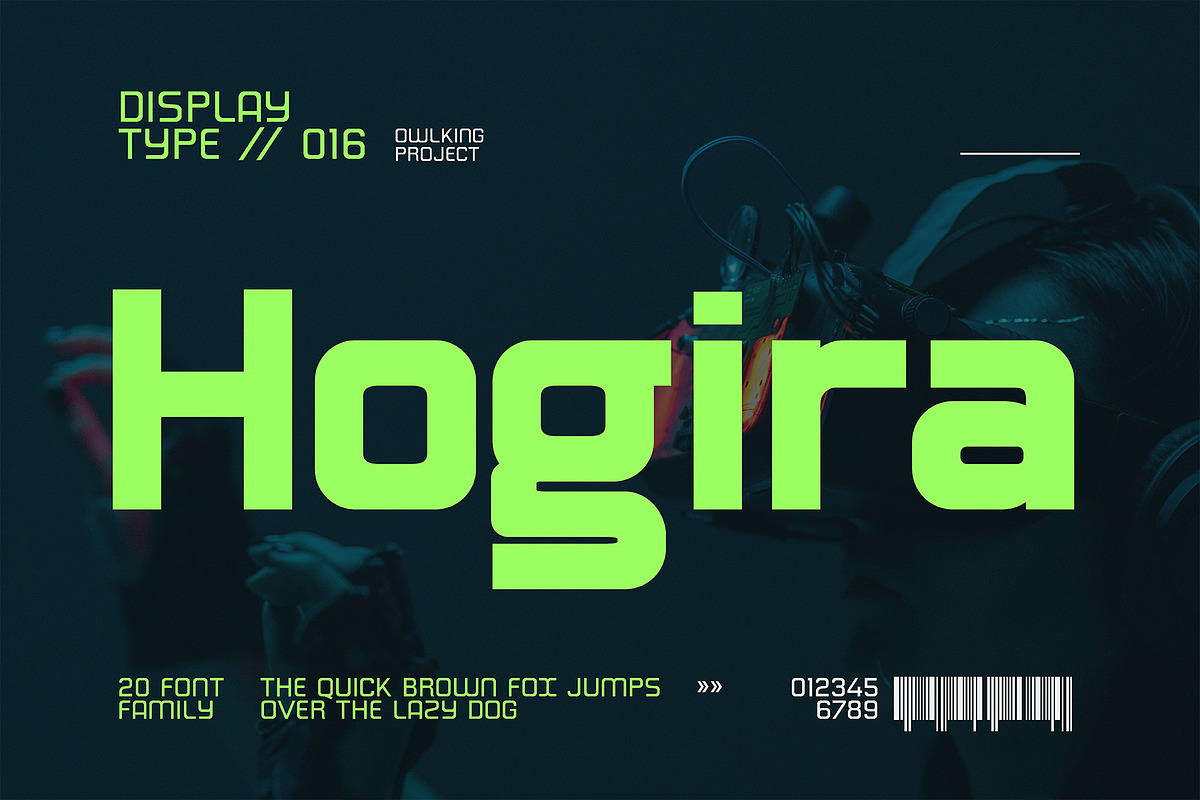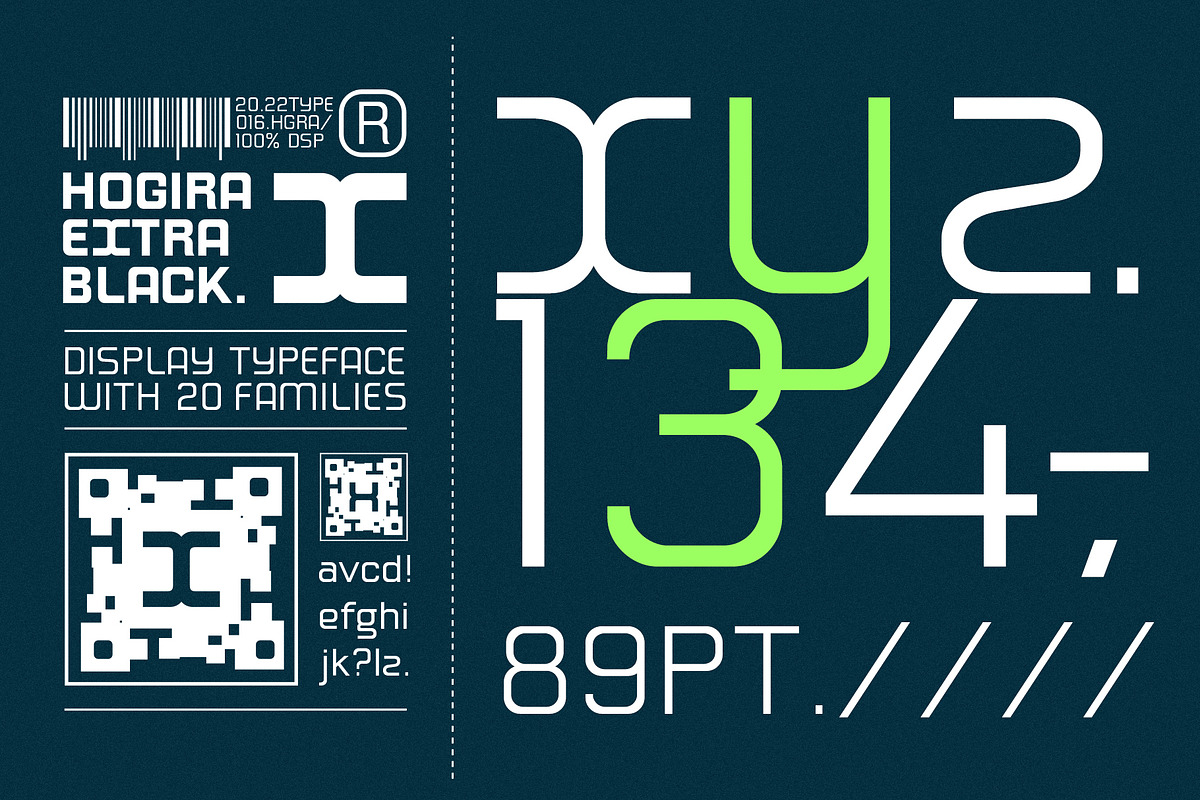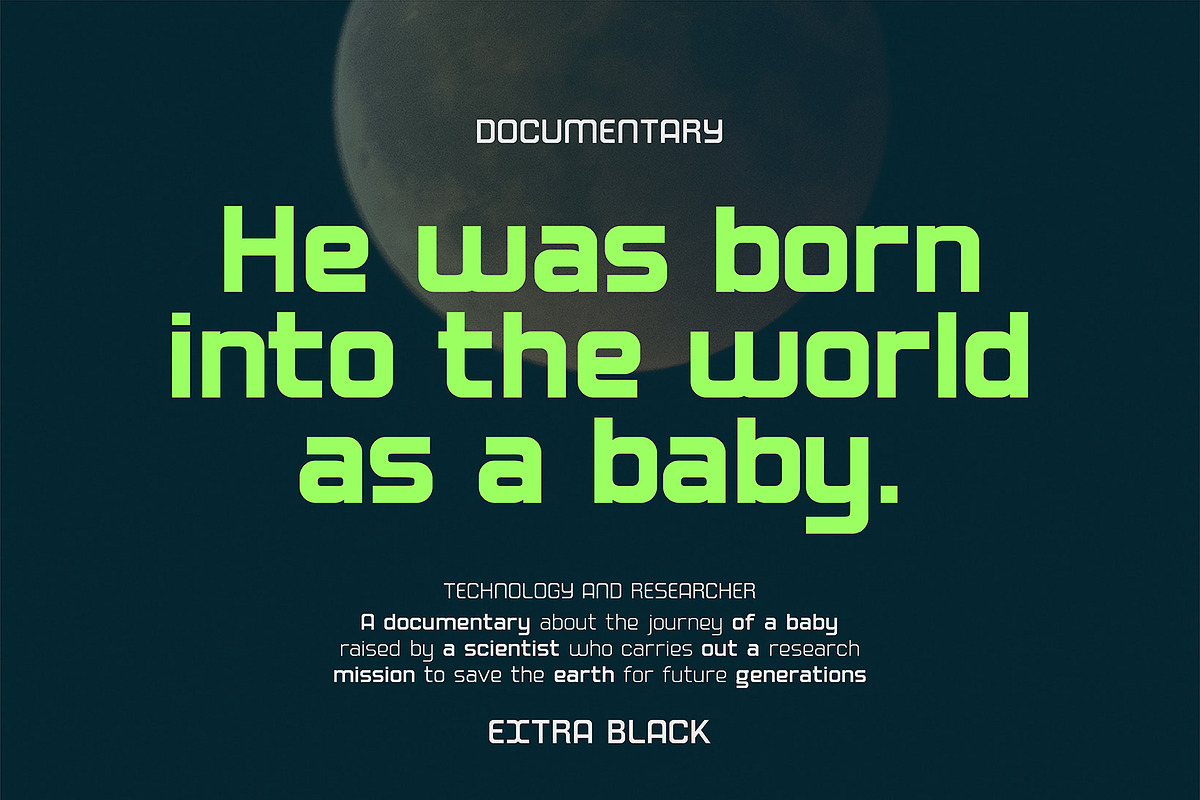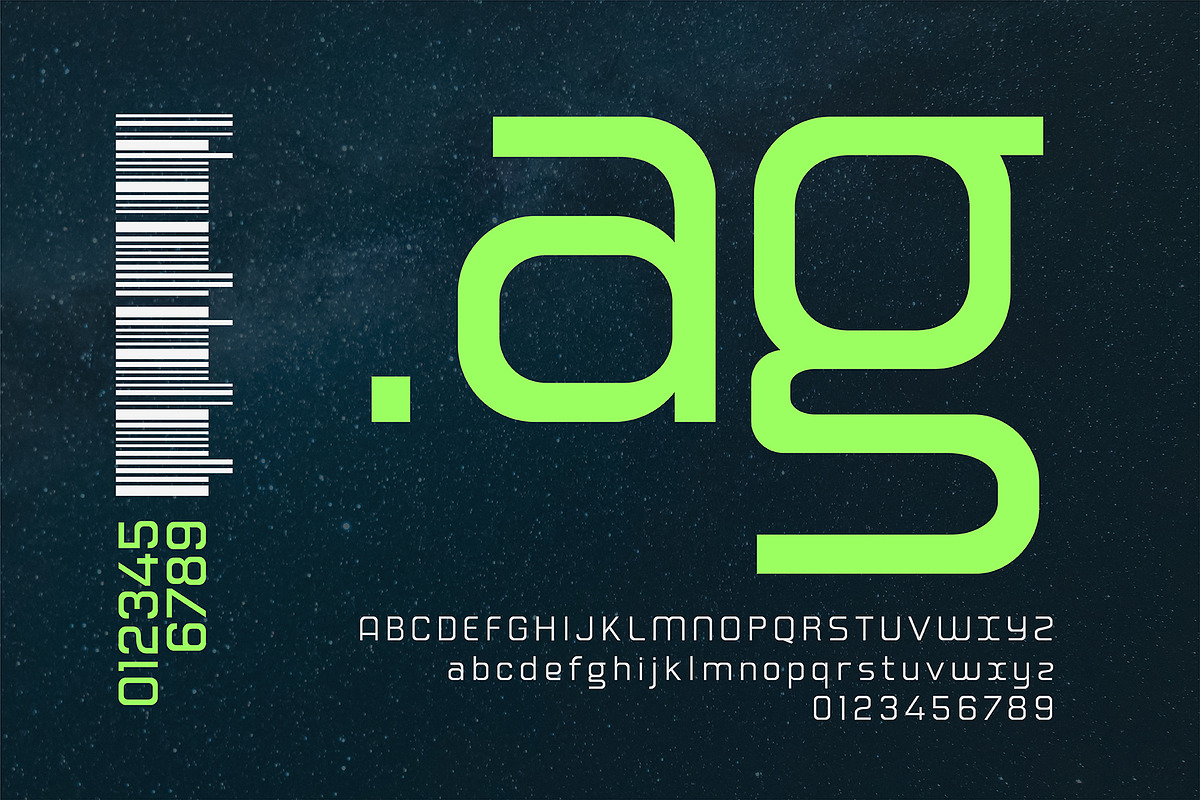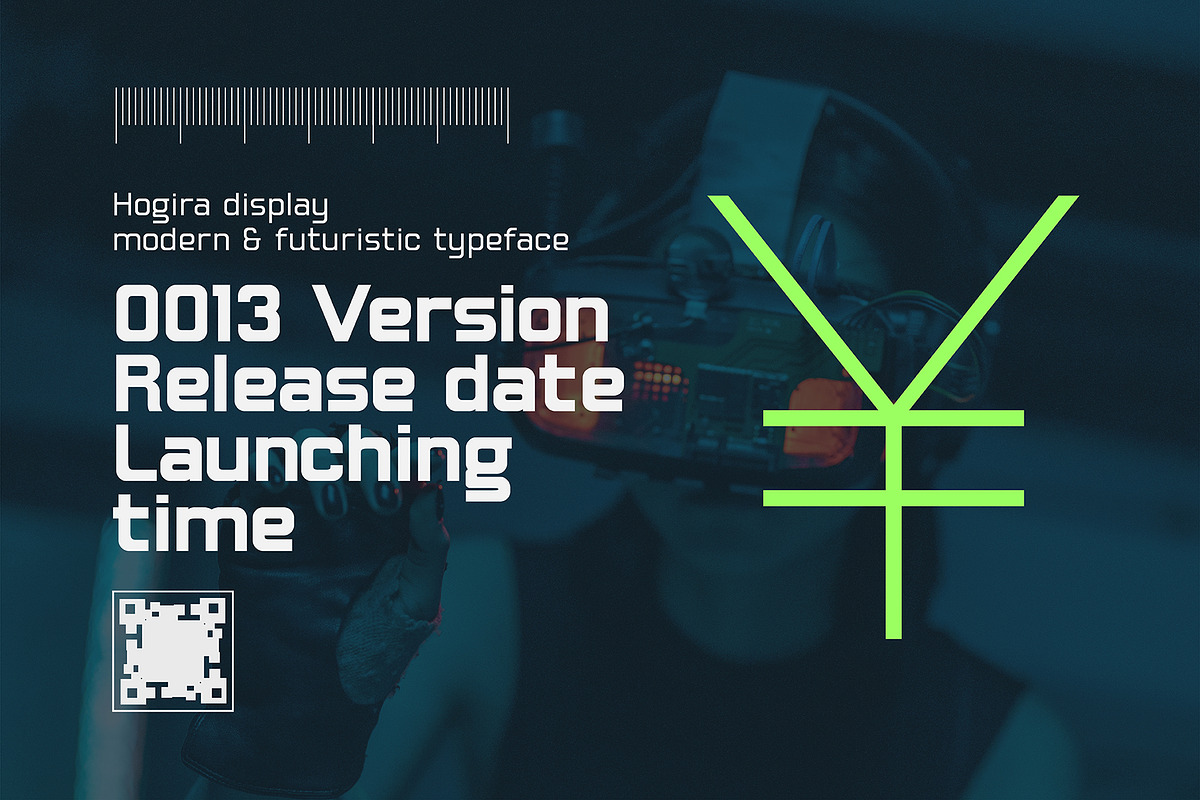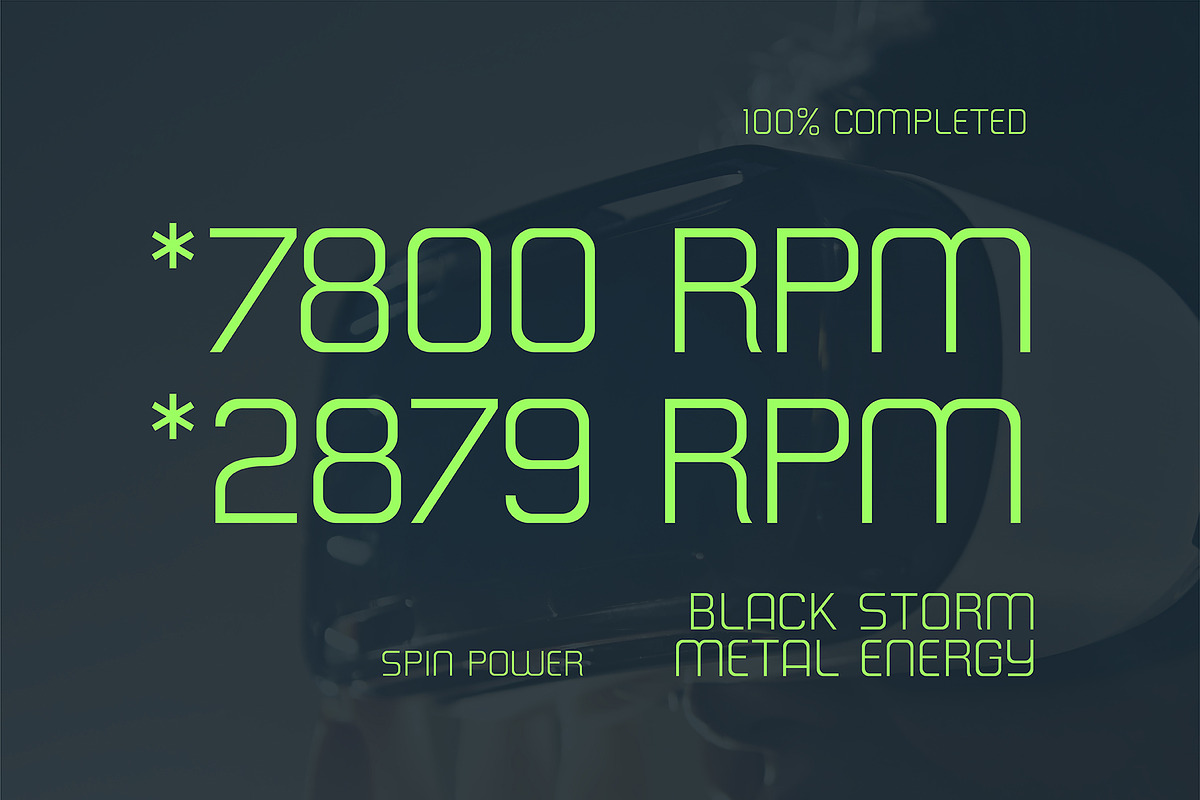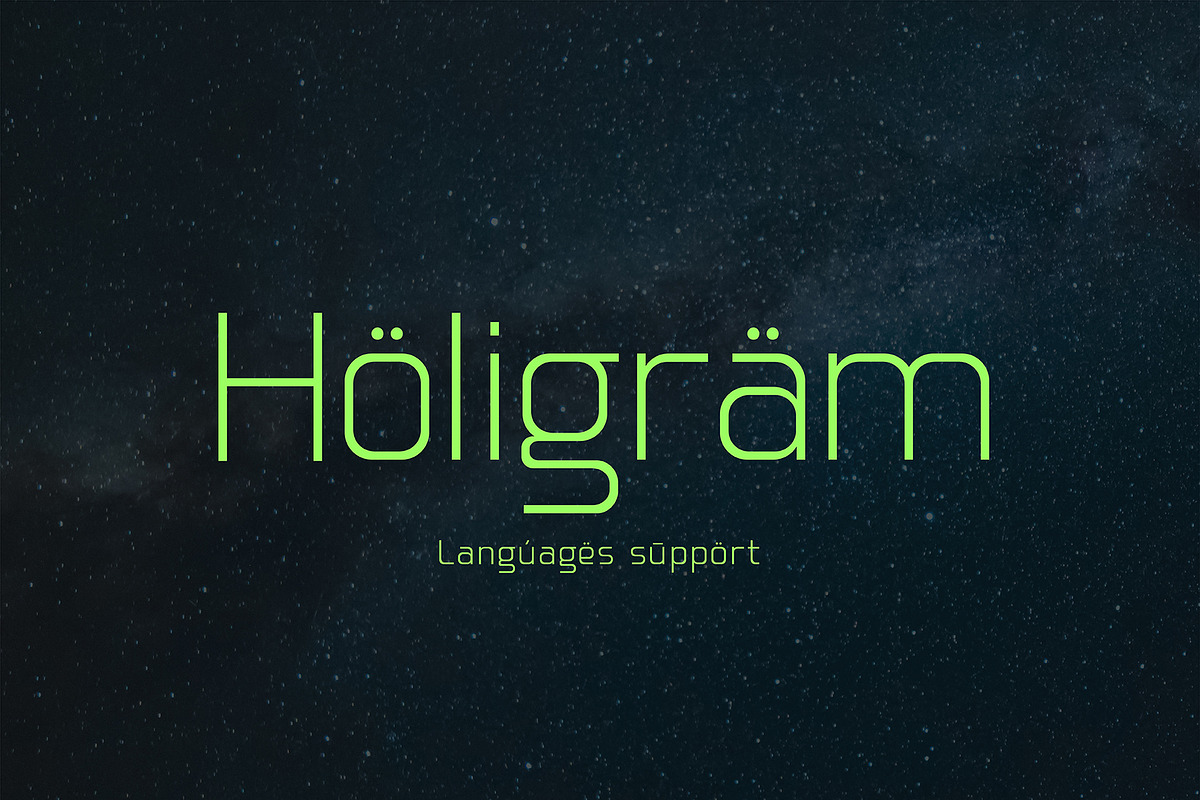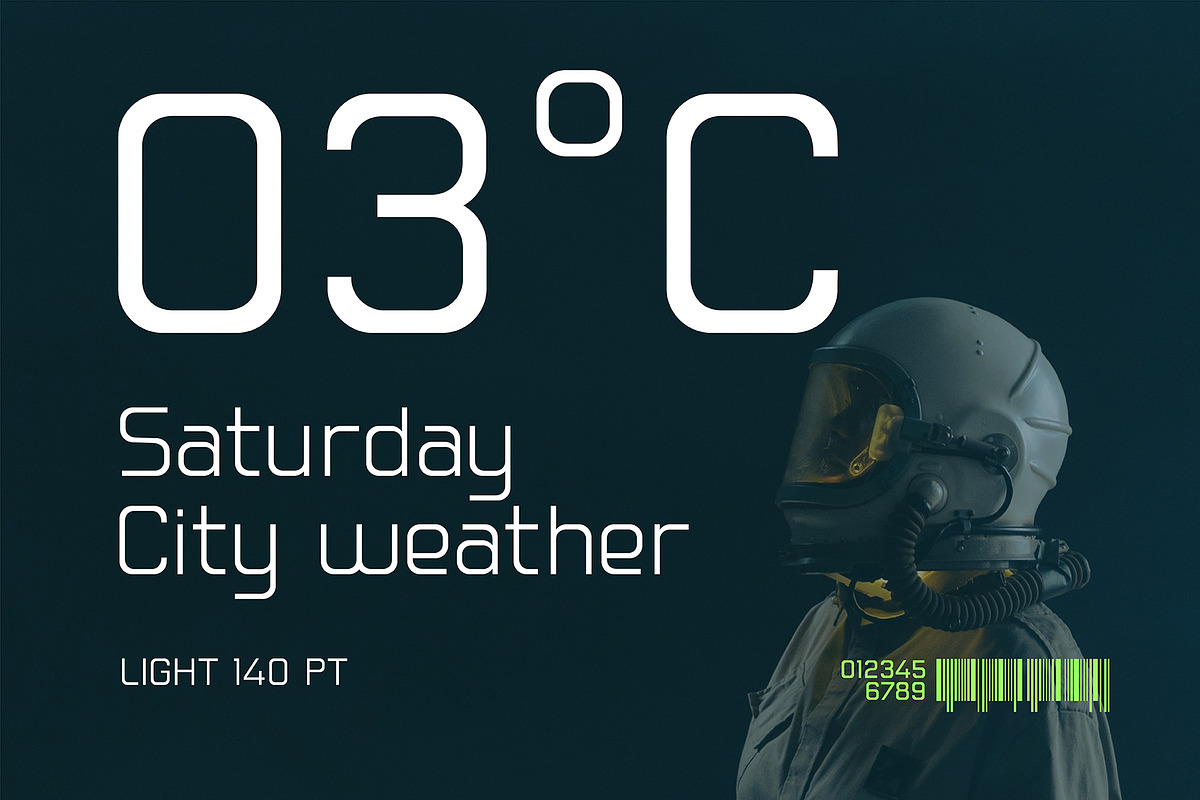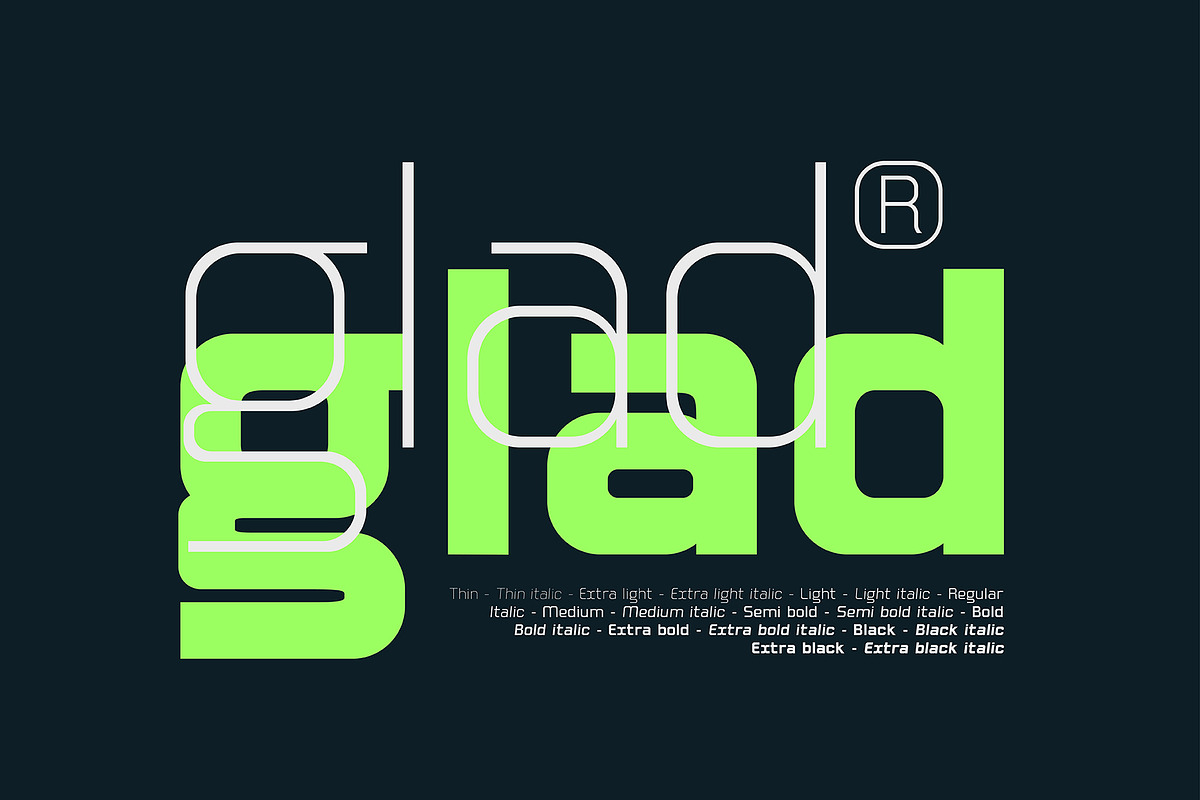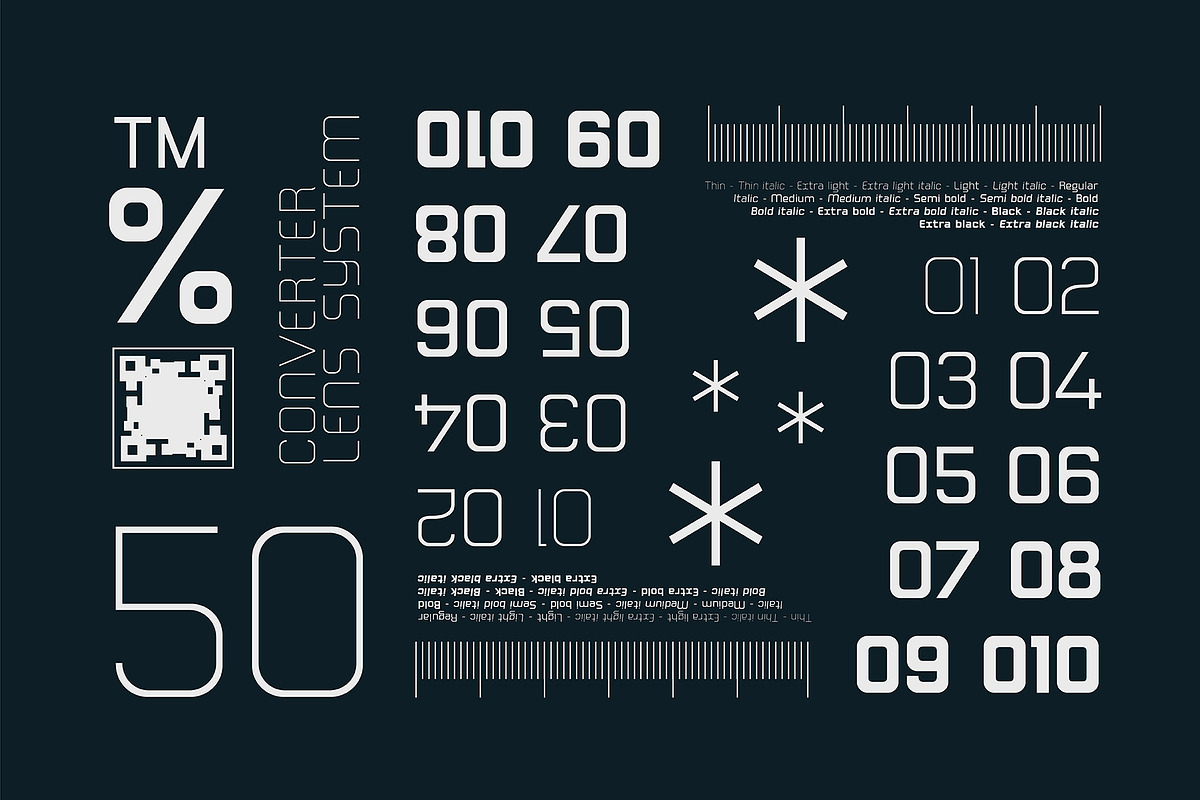
Hogira
- Inspired by technological developments, Hogira is a future-looking display font, Hogira is very suitable for use in writing titles, making text-based logos, websites, and modern design types that are related to emerging technology themes. Hogira also supports multiple languages.